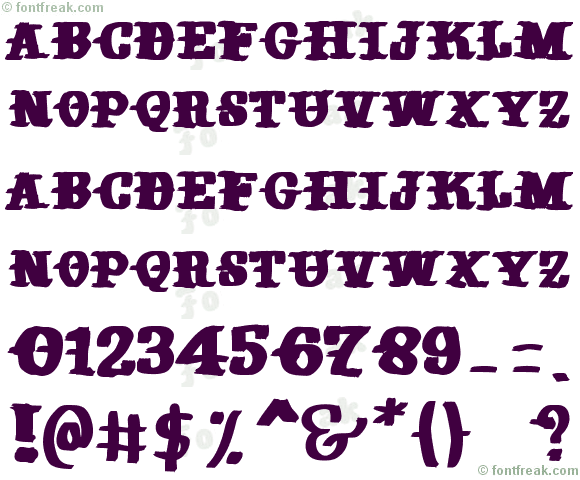
old+sailor
About old+sailor
The old+sailor font by woodcutter Manero is a striking display typeface that evokes a sense of adventure and nostalgia. With its rugged, bold strokes and a hint of maritime charm, this font perfectly captures the essence of seafaring tales and the spirit of exploration. The character design features a combination of rough edges and smooth curves, creating a sense of movement and dynamism. The stroke weight is deliberately uneven, contributing to its handcrafted appearance, making it visually engaging and unique. The spacing is well-considered, allowing for clear readability while maintaining a playful aesthetic.
The old+sailor font is well-suited for a variety of creative applications. It can be effectively used in restaurant menus that aim to convey a nautical theme, adding character to the dining experience. Additionally, it shines in wedding invitations, especially for couples looking to incorporate a rustic or adventurous feel into their special day. Movie posters, particularly for films related to the sea or pirate adventures, can leverage this font’s bold personality to capture the audience's attention. Furthermore, small business owners seeking to brand their products with an adventurous edge will find this font invaluable for logos and promotional materials.